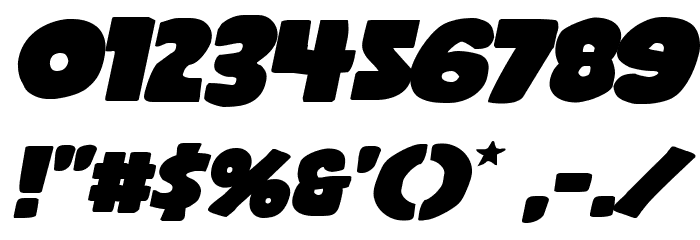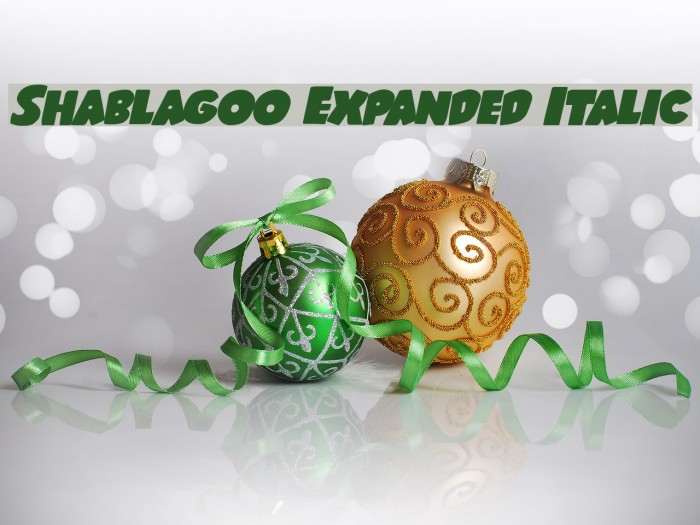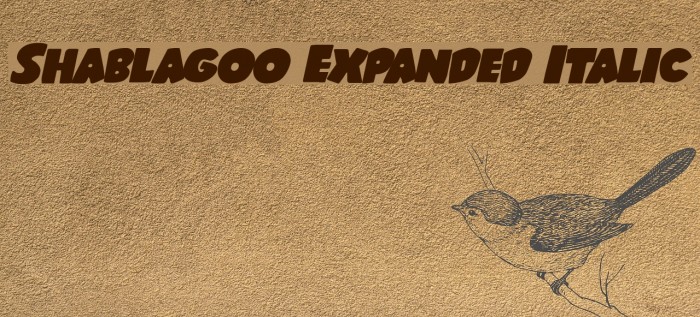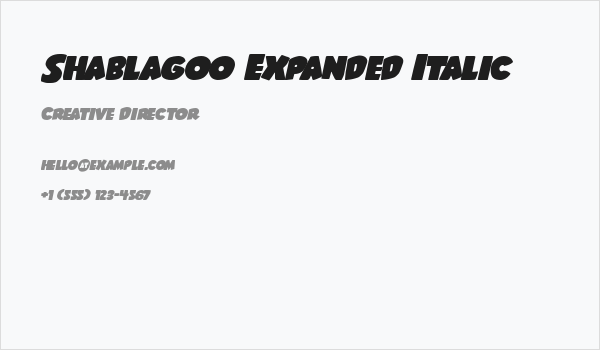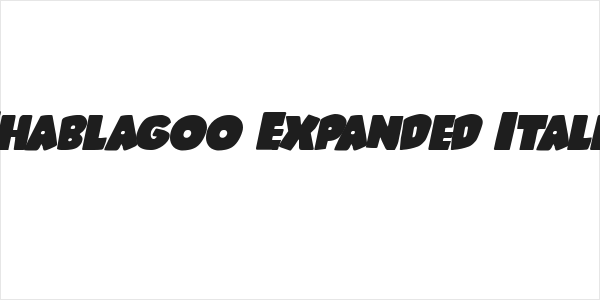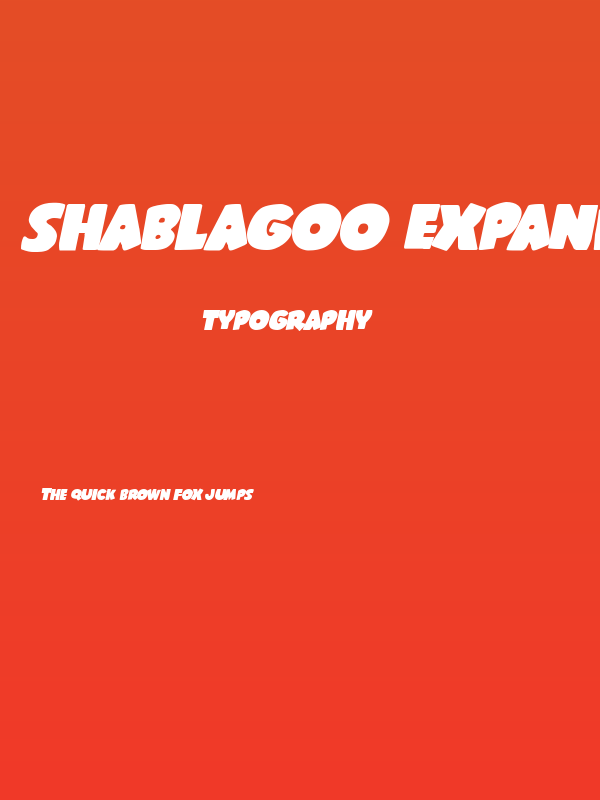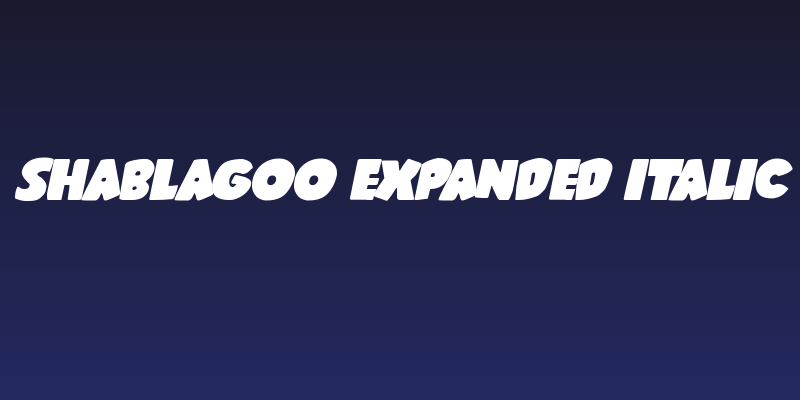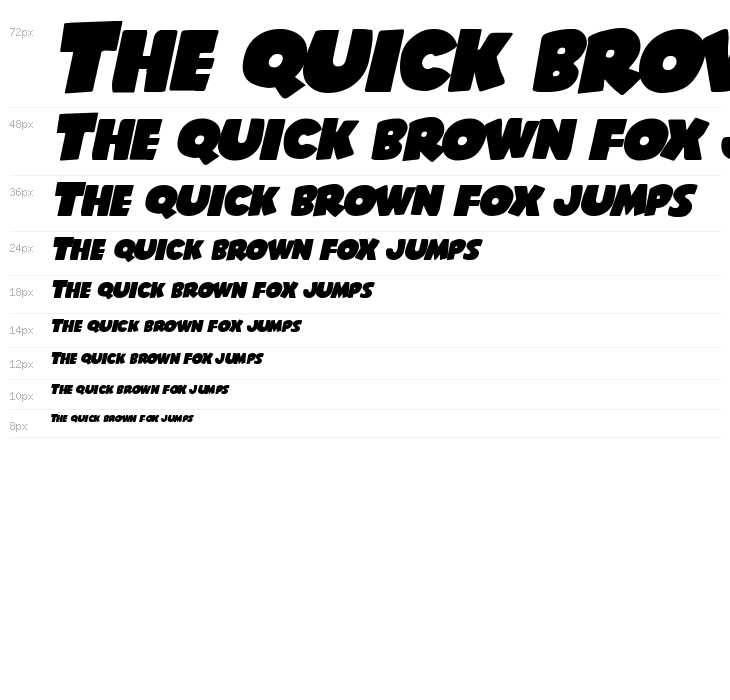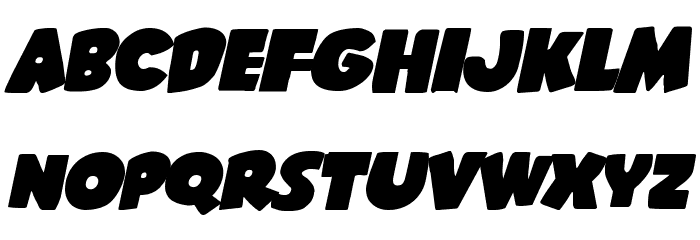
Shablagoo Expanded Italic Font
Shablagoo Expanded Italic Description
This font features a bold and dynamic style with an italic slant, giving it a sense of movement and energy. The characters are heavily weighted, contributing to a strong visual impact. The expanded width of the letters enhances readability while maintaining a playful and robust appearance. The rounded edges and smooth curves add a friendly and approachable feel, making it suitable for informal and creative projects. The font includes a full set of uppercase and lowercase letters, numerals, and a variety of special characters, ensuring versatility in design applications.
Proposed ProjectsIdeal for posters, headlines, branding, and any project requiring a bold and energetic typeface.